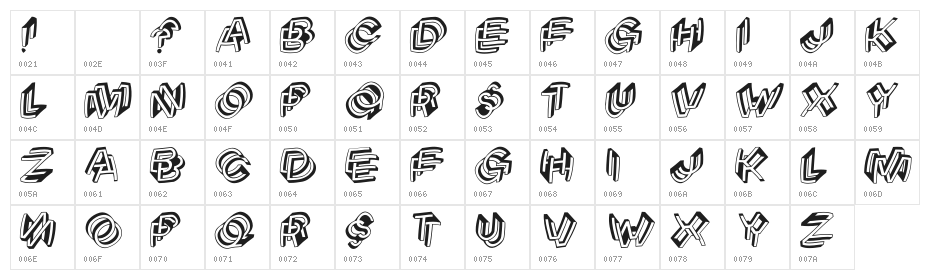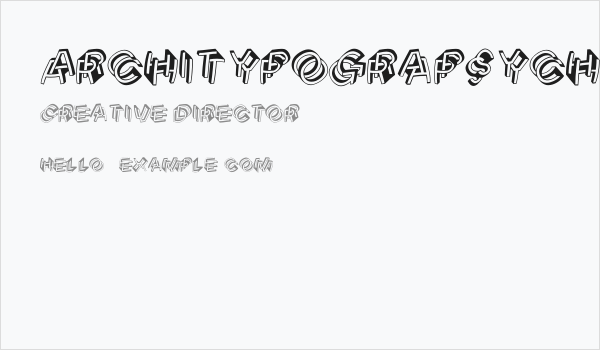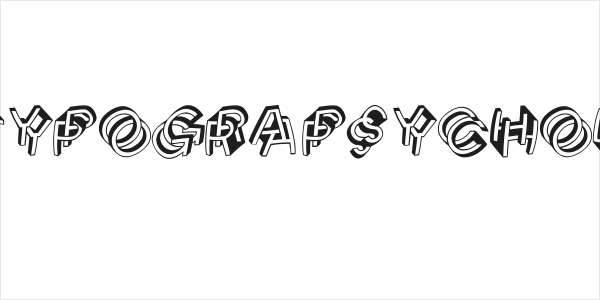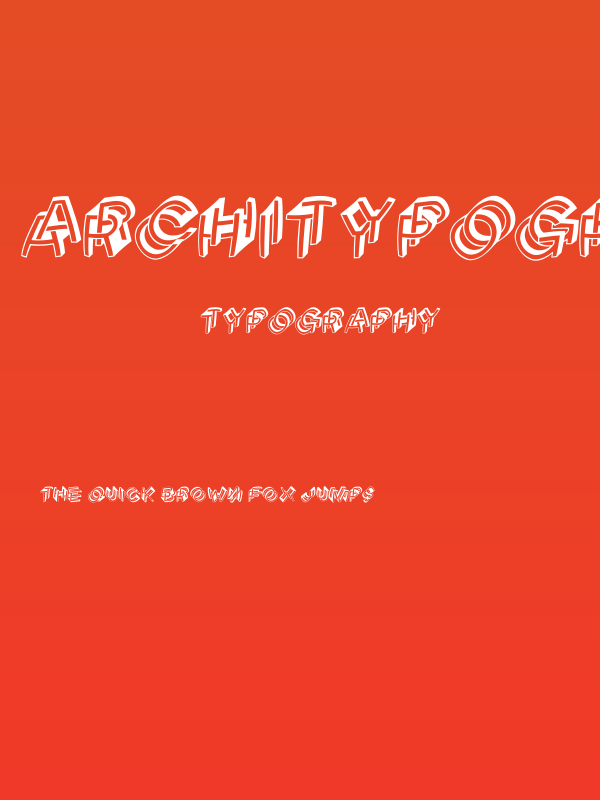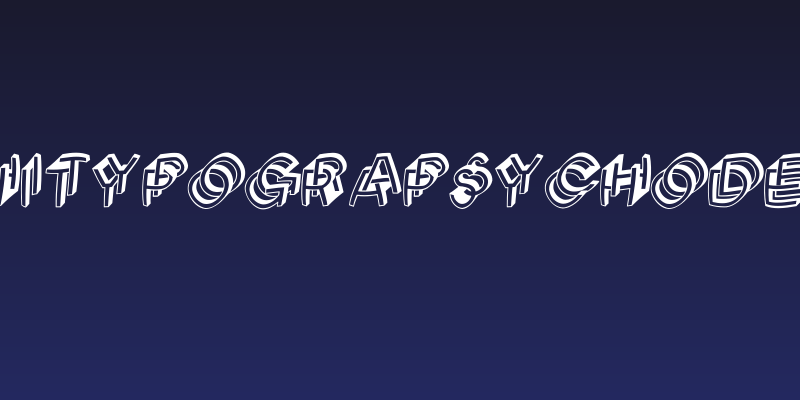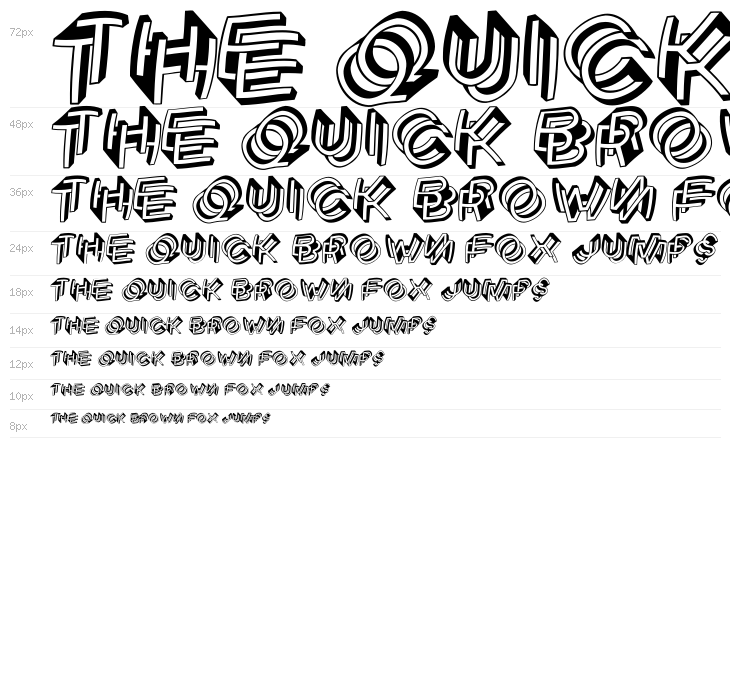
ArchitypograPsychodeliqu Font
ArchitypograPsychodeliqu Description
This font features a bold, three-dimensional design with a playful and dynamic appearance. Each character is outlined with a thick black line, creating a shadow effect that gives depth and a sense of movement. The letters are uppercase, with a consistent height and width, contributing to a cohesive look. The style is reminiscent of retro or comic book aesthetics, making it eye-catching and suitable for creative projects. The font's unique structure and bold presence make it ideal for attention-grabbing headlines or artistic designs.
| Overall Style | Retro, Comic |
| Use Case | Headlines, Posters, Artistic Designs |
| Proposed Projects | Ideal for posters, comic book titles, retro-themed designs, and eye-catching headlines. |